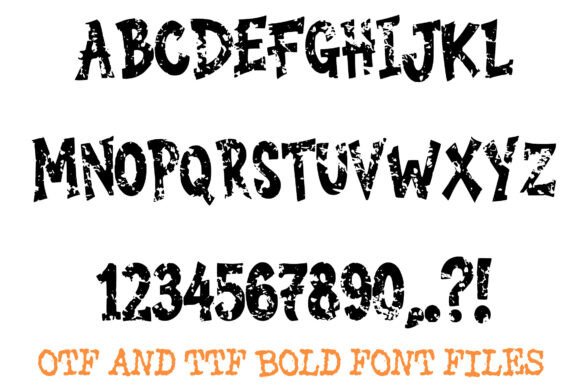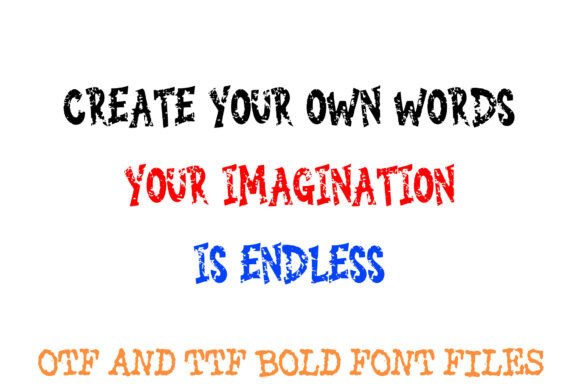
Unleash the Power of Distressed Granite Font in Your Designs
Are you looking for a font that can add a raw, elemental energy to your designs? Look no further than the Distressed Granite Bold Font. This powerful display typeface is perfect for designers and crafters who want to create high-impact branding, heavy metal band posters, epic gaming interfaces, or urban street-style apparel.
The Unique Characteristics of Distressed Granite Font
The Distressed Granite Font features heavy, blocky characters with a complex, dark stone texture that mimics the natural fissures and mineral veins of ancient granite. The sharp, jagged edges and weathered silhouette of each letter give it a rugged, “carved from stone” aesthetic that balances ancient mystery with modern grit.
Each letter is hand-drawn to capture the unique texture and pattern of distressed granite. The intricate stone texture is filled with a unique, high-contrast distressed pattern that resembles cracked obsidian or granite. This makes every character in the font truly one-of-a-kind.
Why Choose Distressed Granite Font?
So why choose the Distressed Granite Font for your designs? Here are just a few reasons:
- Adds a raw, elemental energy: The Distressed Granite Font is perfect for designers who want to add a touch of raw power and energy to their designs.
- Perfect for high-impact designs: The heavy, blocky characters and distressed texture make it perfect for high-impact branding, posters, and interfaces.
- Unique and authentic look: The hand-drawn characters and intricate stone texture give the font a unique and authentic look that will set your designs apart.
- Versatile: The Distressed Granite Font can be used for a wide range of designs, from book covers to social media graphics to brand identities.
Use Cases for Distressed Granite Font
The Distressed Granite Font is perfect for a wide range of design projects, including:
- Book covers: The font is perfect for dark fantasy novels, sci-fi books, and other genres that require a bold and edgy look.
- Heavy metal band posters: The font’s aggressive, jagged edges and distressed texture make it perfect for heavy metal band posters and other music-related designs.
- Epic gaming interfaces: The font’s bold, blocky characters and distressed texture make it perfect for epic gaming interfaces and other gaming-related designs.
- Urban street-style apparel: The font’s rugged, weathered look makes it perfect for urban street-style apparel and other fashion-related designs.
- Brand identities: The font’s unique and authentic look makes it perfect for brand identities, especially for industrial workshops and other businesses that require a bold and edgy image.
Tips for Using Distressed Granite Font
Here are a few tips for using the Distressed Granite Font in your designs:
- Use it sparingly: The font’s bold, distressed texture can be overwhelming if used too much. Use it sparingly to add emphasis and create visual interest.
- Pair it with contrasting fonts: Pair the Distressed Granite Font with contrasting fonts to create visual interest and add depth to your designs.
- Experiment with colors: The font’s distressed texture looks great in a wide range of colors. Experiment with different colors to find the one that works best for your design.
The Distressed Granite Font is a powerful display typeface that can add a raw, elemental energy to your designs. With its unique, hand-drawn characters and intricate stone texture, it’s perfect for designers and crafters who want to create high-impact branding, heavy metal band posters, epic gaming interfaces, or urban street-style apparel. Whether you’re designing a book cover, creating social media graphics, or building a brand identity, the Distressed Granite Font provides a solid, unshakeable foundation for your text.